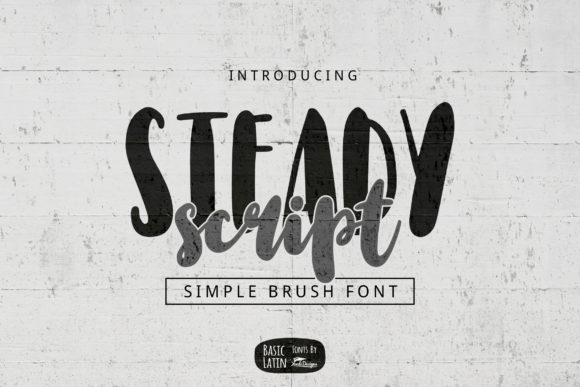
Step into the world of Steady Script, a display font that captivates with its bold, confident strokes and strong, dynamic presence. This font is crafted with nostalgic charm, ready to infuse your designs with a touch of playfulness and captivation.
With Steady Script, you'll discover a script font like no other. Its bold lines dance across the page, exuding confidence and demanding attention. The font's unique character gives your designs a sense of movement and energy, drawing the viewer into your visual creations.
Imagine your designs adorned with Steady Script, its characters flowing like a gentle breeze. This font is perfect for adding a touch of whimsy and personality to your logos, branding, and social media posts. It will make your designs stand out from the crowd, leaving a lasting impression on your audience.
Steady Script is versatile in its applications. Whether you're a designer crafting eye-catching logos or a social media manager seeking to elevate your content, this font has the power to transform your creations. It effortlessly adds a touch of flair to wedding invitations, greeting cards, and other personal projects, making your designs truly memorable.
But what truly sets Steady Script apart is its emotional impact. This font has the ability to evoke a range of emotions, from joy and excitement to nostalgia and reflection. Its playful nature invites a sense of wonder, while its bold strokes inspire confidence and determination. With Steady Script, your designs will resonate with your audience on a deeper level, creating a connection that goes beyond words.
So, embrace the magic of Steady Script and unlock the potential of your designs. Let this font guide you on a journey of creativity, adding depth and meaning to your visual creations. Get ready to make a statement, capture hearts, and leave a lasting impression with every design you create.